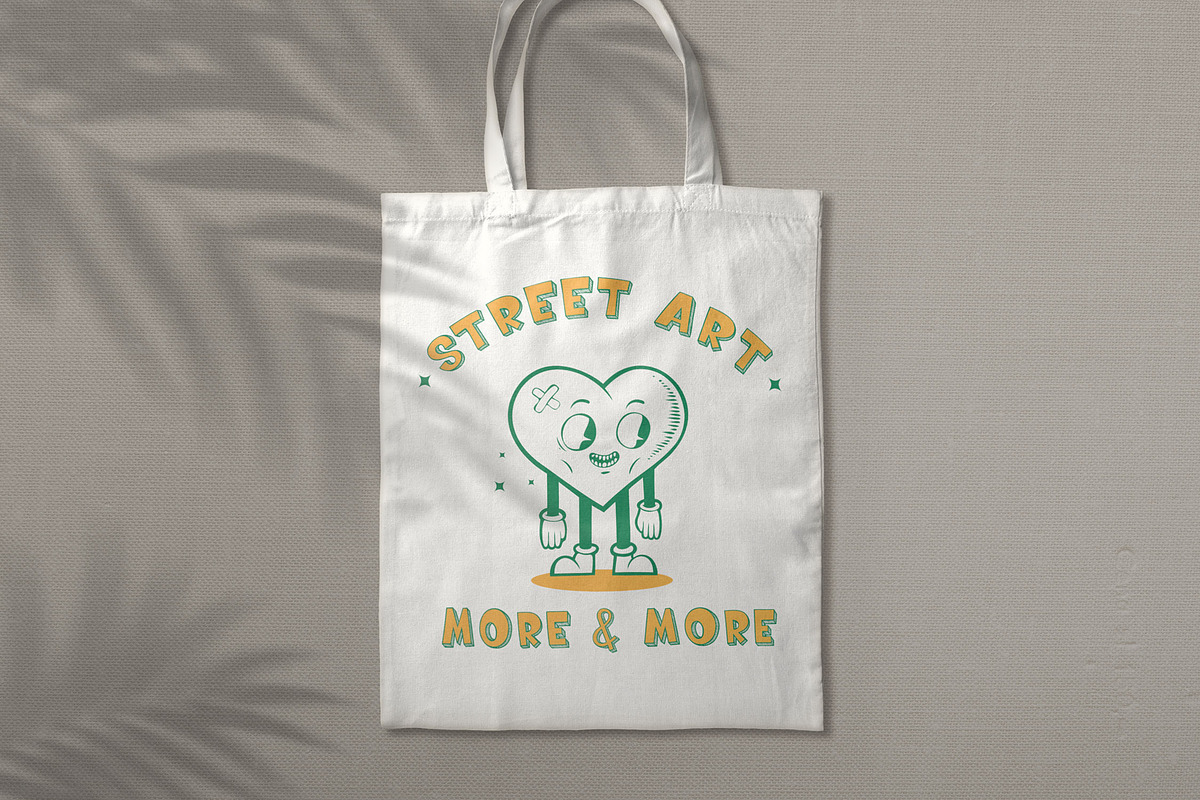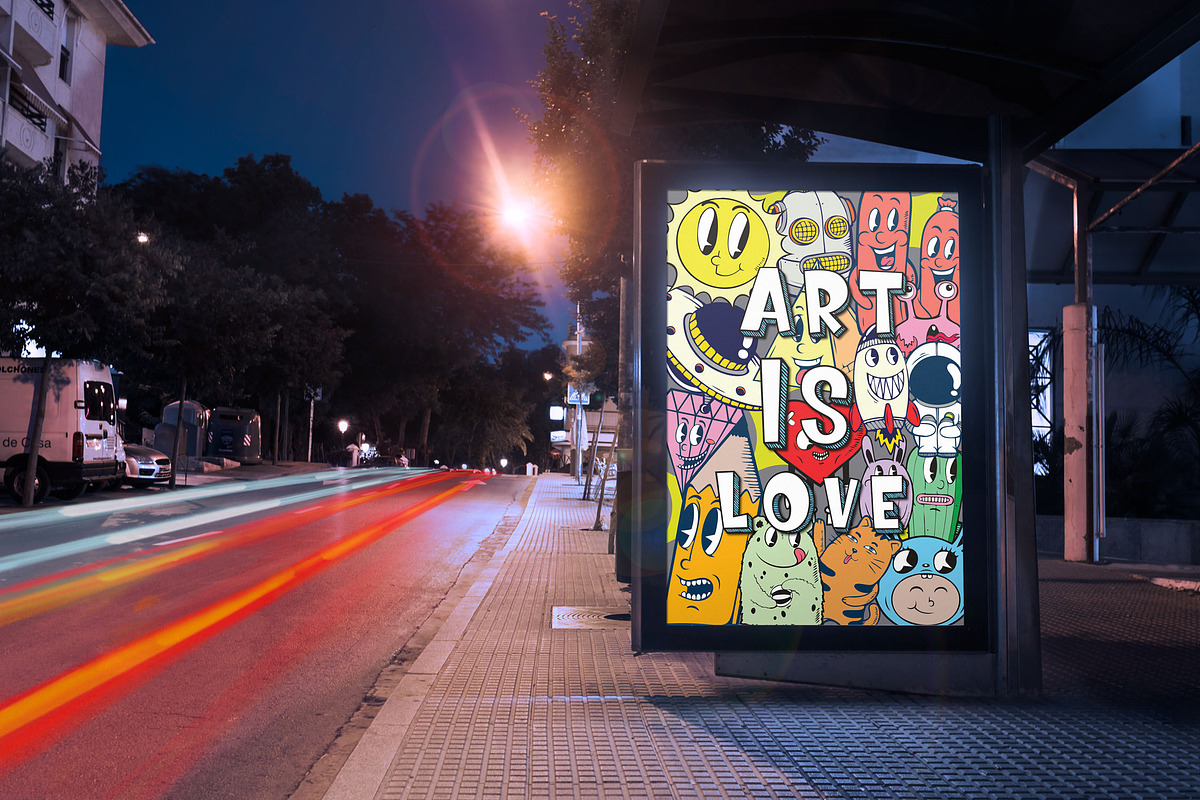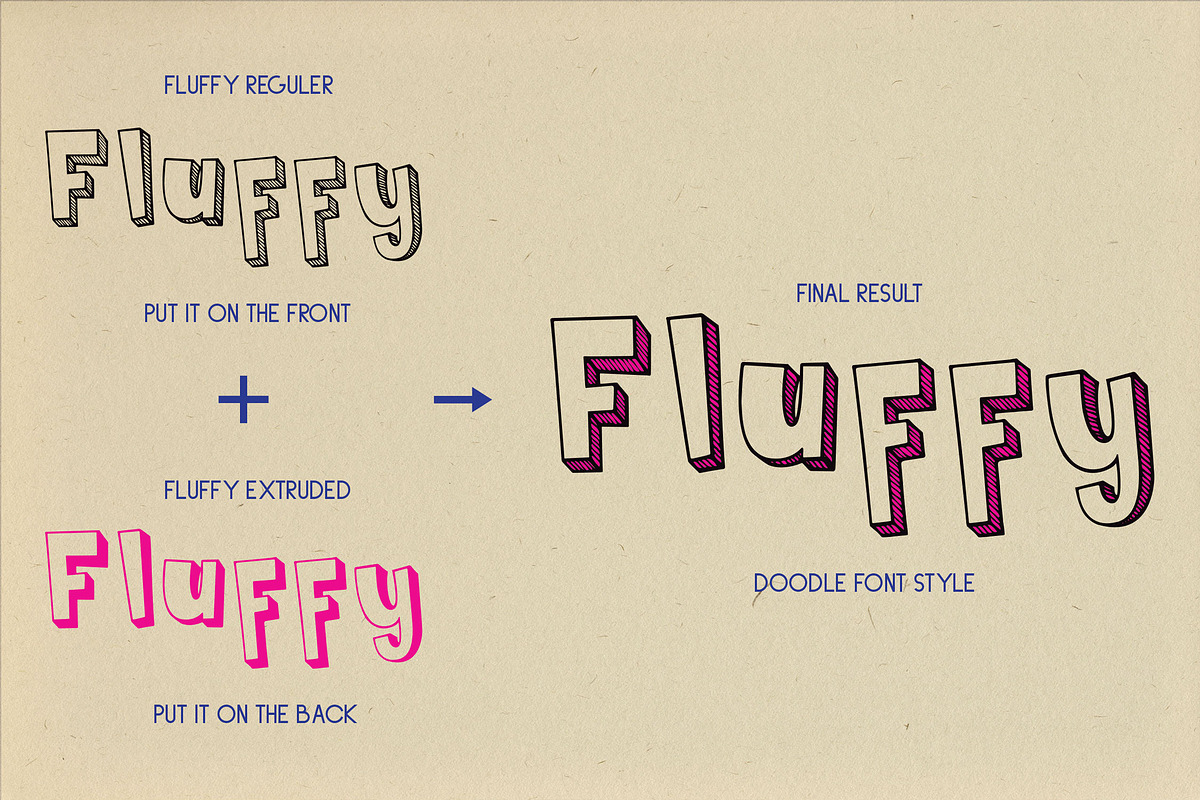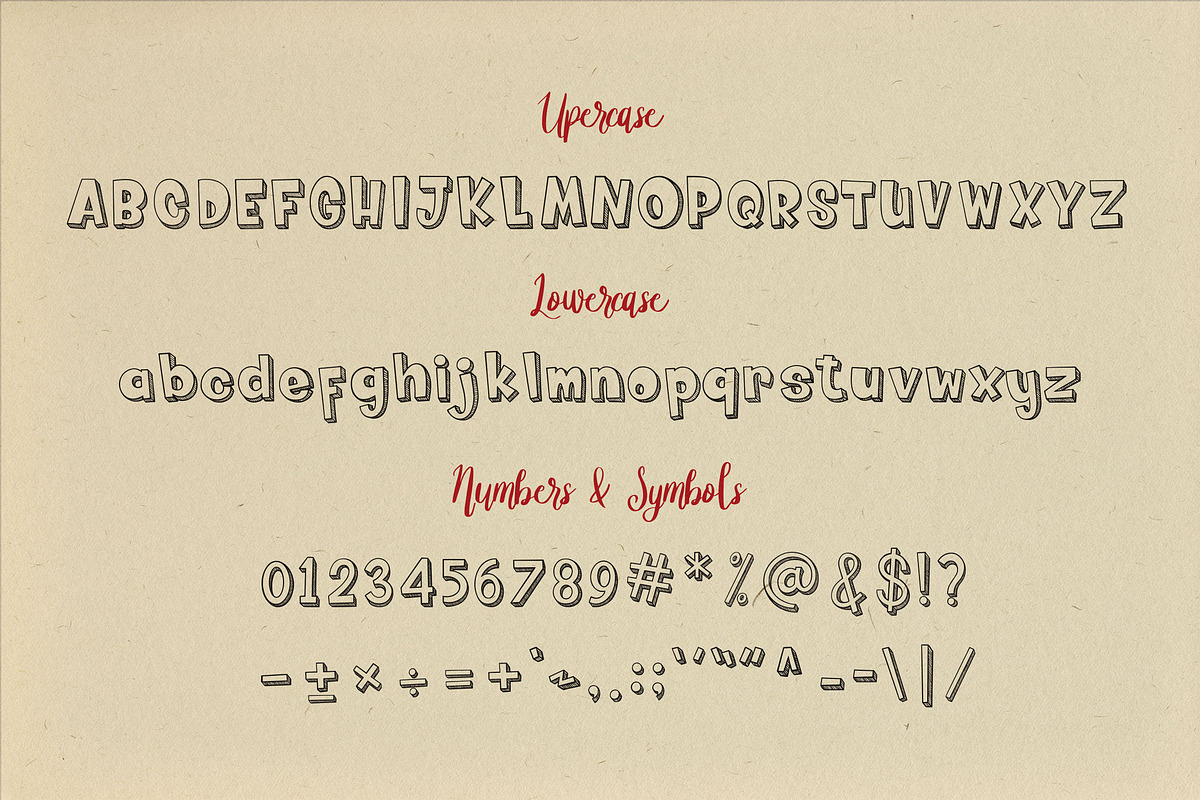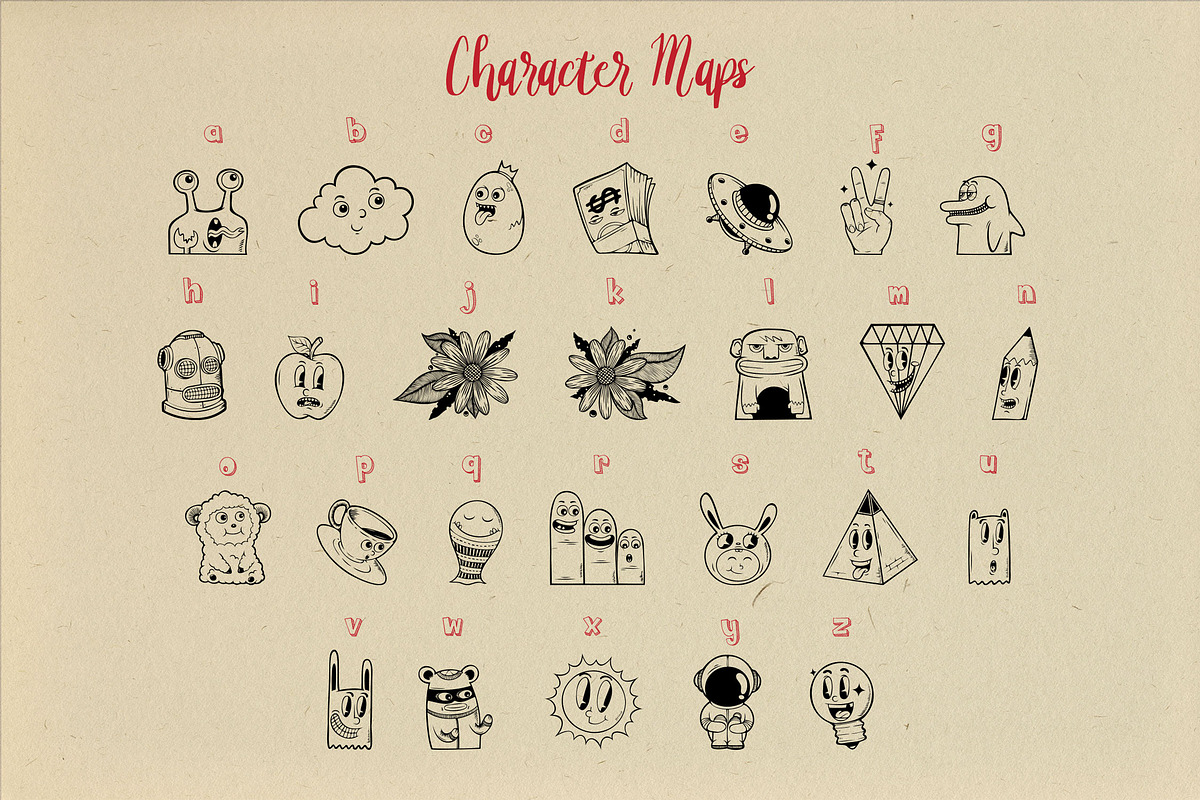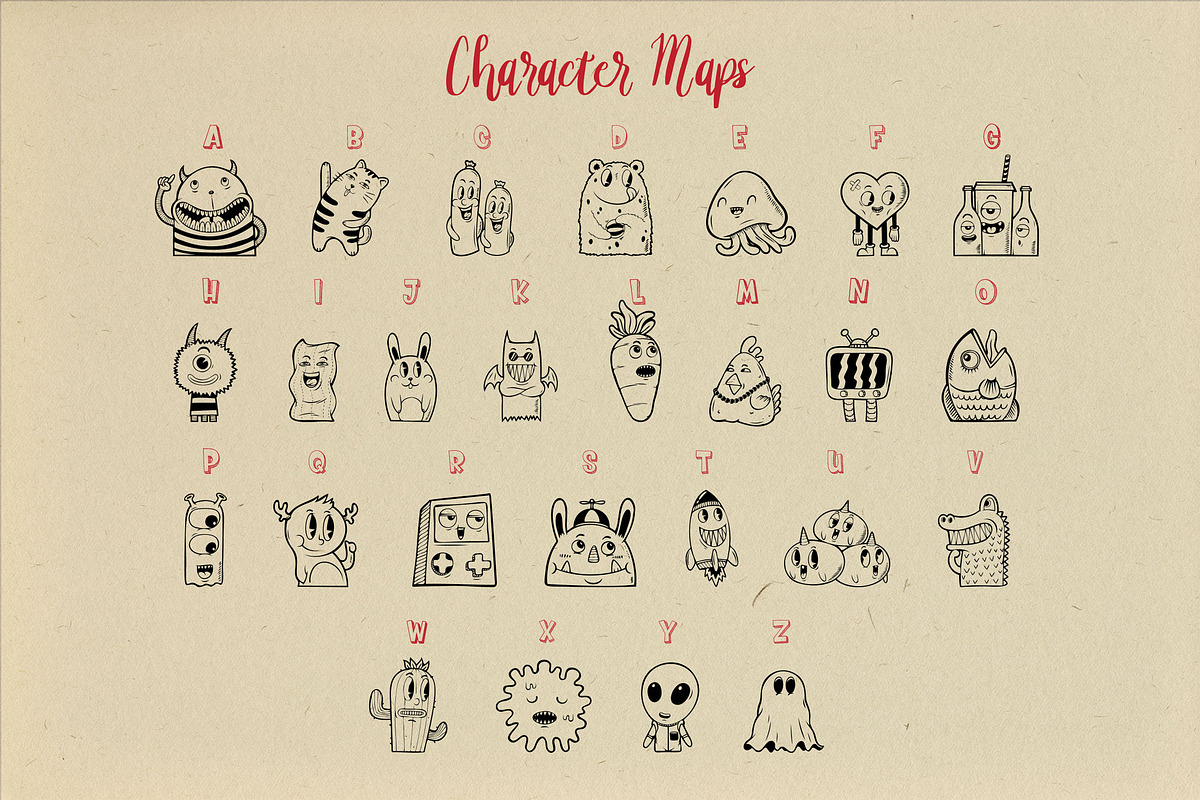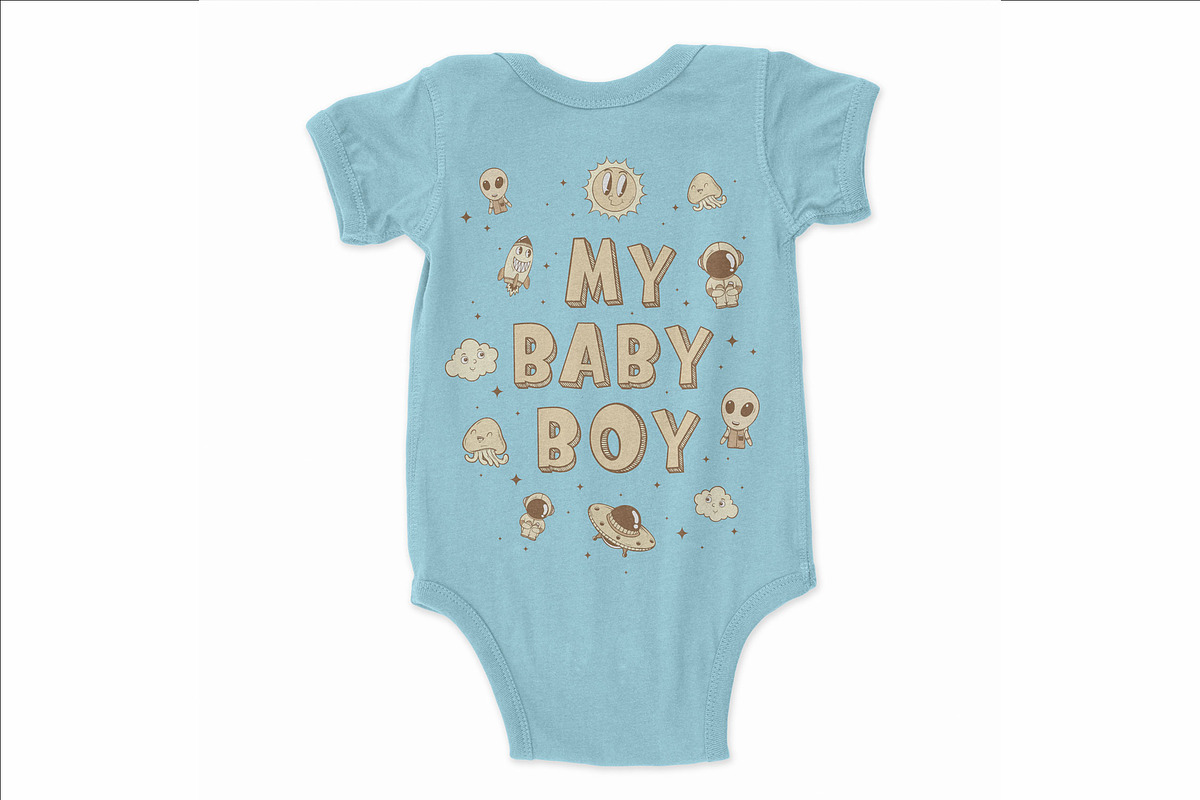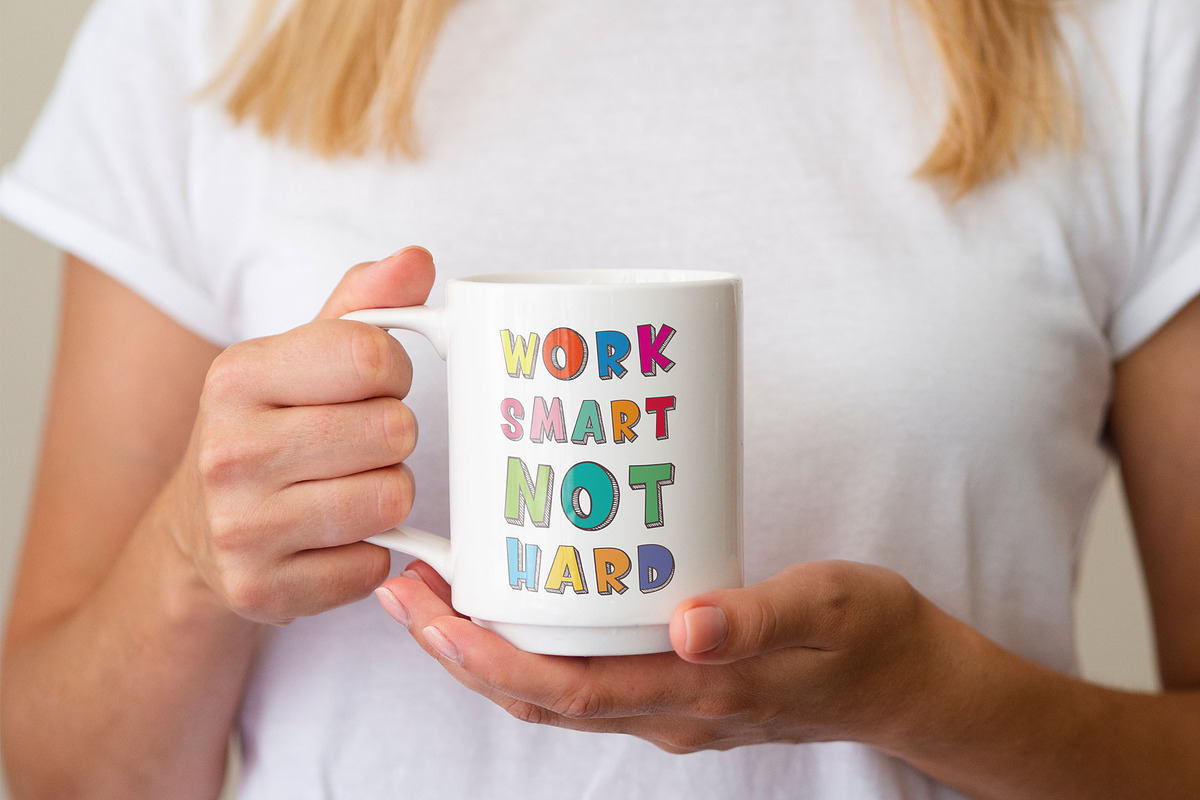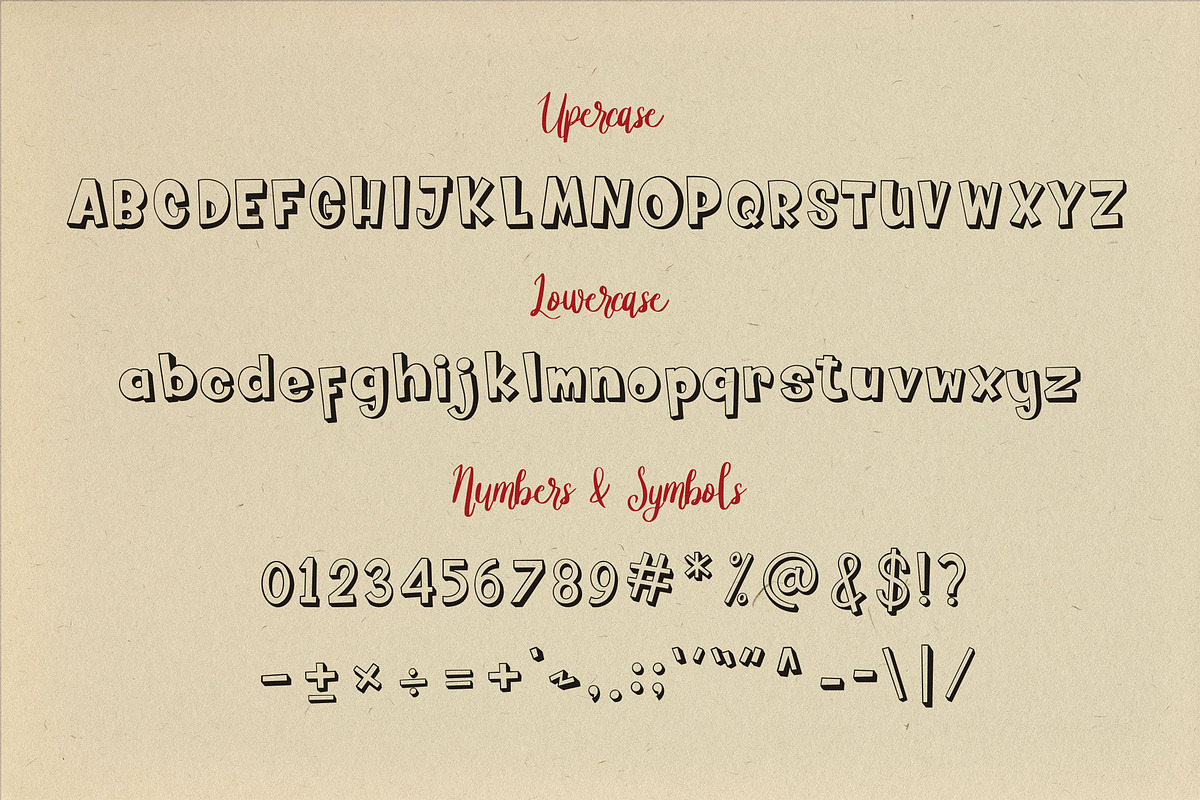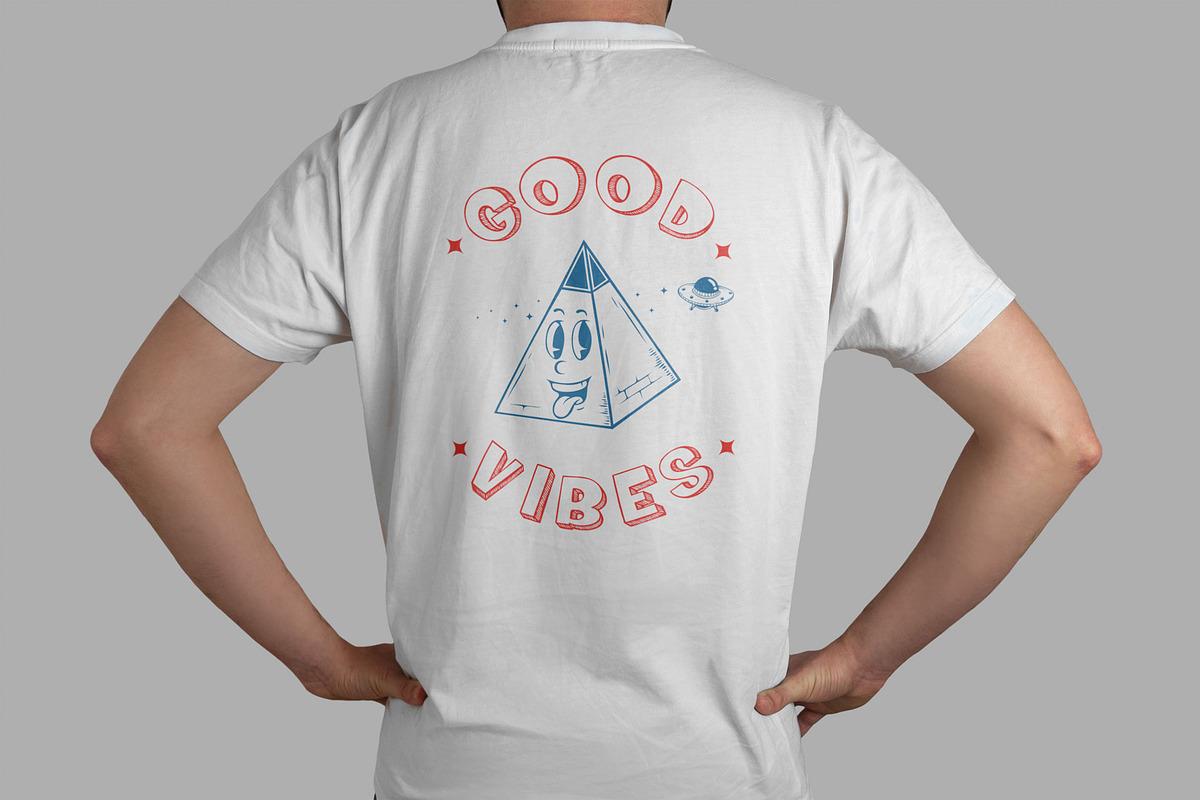
Fluffy Monsta - Cute Doodle Font
Introducing Fluffy Monsta, is a Cute Doodle Font has many purpose and suitable for sticker, logo, badges, logotype, doodle, card, advertising and much more.
- Available Alternates for Choosing Characters